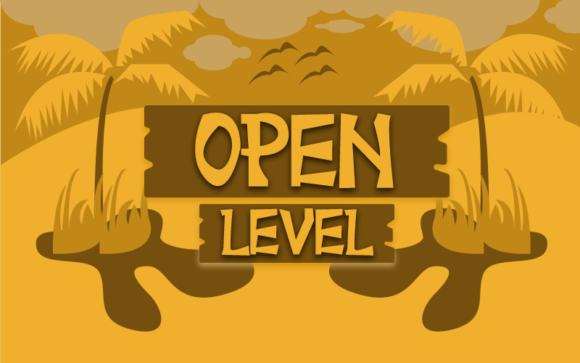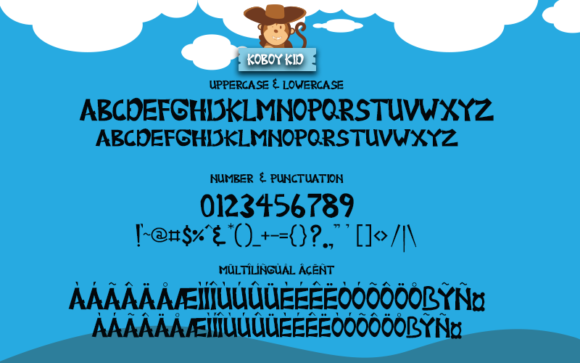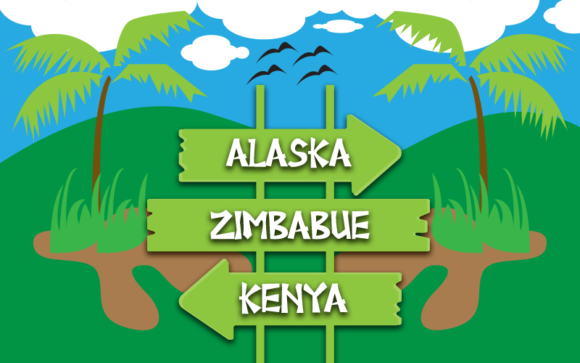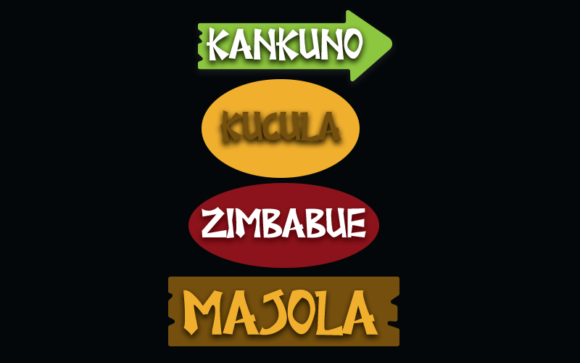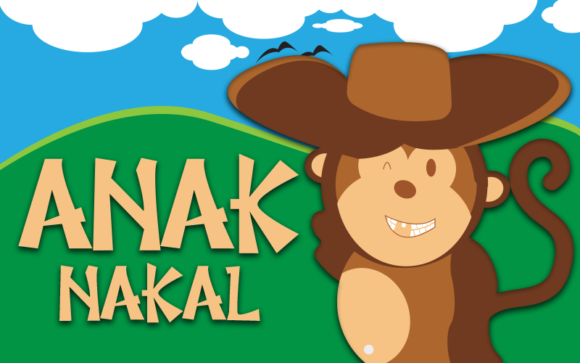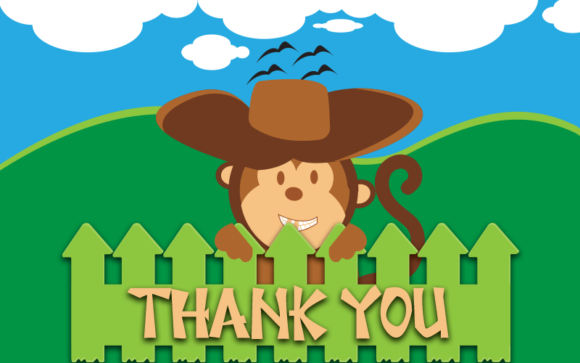
Introduction to Koboy Kid Font
Have you ever stared at a blank page, brainstorming ideas for your next creative project, only to have a spark of inspiration strike when you least expect it? For designers, those moments of clarity are what make the process so rewarding. And what better way to bring your ideas to life than with a font that exudes warmth and personality?
Enter Koboy Kid Font, a charming handwritten font that’s sure to captivate your audience and elevate your design game. With its high-quality design and friendly feel, this font is an absolute must-have for any creative project. Whether you’re crafting a social media post or creating a custom invitation, Koboy Kid Font is the perfect design resource to help you shine.
Key Features of Koboy Kid Font
- Unique and playful design style, perfect for creative projects and children’s content.
Honest Review: Koboy Kid Font
I recently had the chance to work with the Koboy Kid Font on a creative project and I must say, it’s been a delightful experience. This font is a high-quality design resource that offers a unique, playful touch to any design project.
What works well: ✨ The font is highly customizable, allowing me to adjust the size, color, and style to fit my needs. The transparent background makes it easy to integrate into any design, and the free download option is a huge plus. The font’s bold and vibrant lines make it perfect for creating eye-catching graphics and headings.
Some limitations: ⚠️ The font may not be suitable for all types of projects, particularly those requiring a more professional or formal tone. Additionally, the font’s design can be overwhelming if used excessively, so it’s essential to use it judiciously.
Overall, I’m impressed with the Koboy Kid Font. Its versatility, customizability, and free download option make it an excellent choice for designers working on creative projects. While it may not be suitable for all types of projects, it’s a great addition to any design library.
The Koboy Kid Font is perfect for designing logos, posters, flyers, and other creative projects. It’s also great for creating social media graphics, banners, and other digital content. With its high-quality design and transparent background, the Koboy Kid Font is a valuable resource for any creative project.